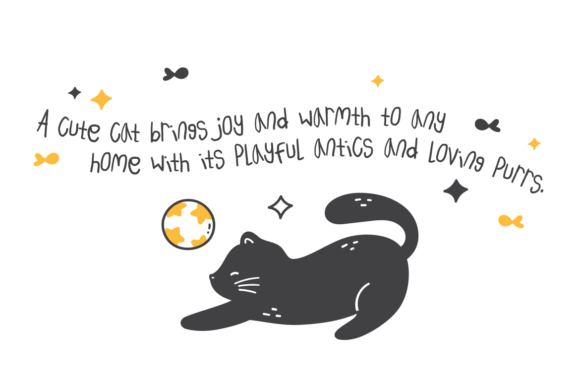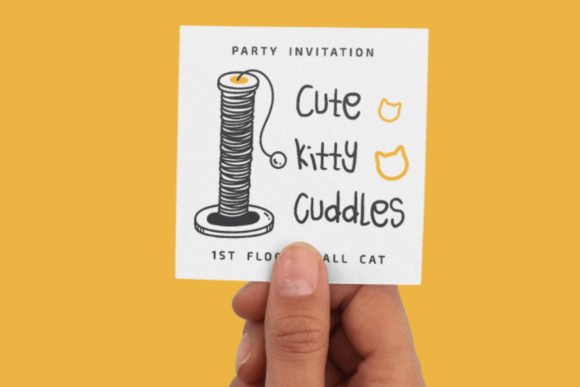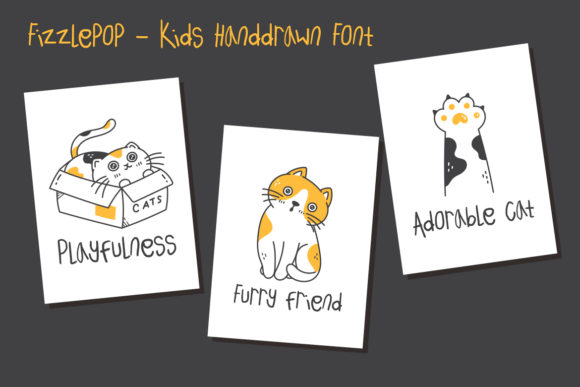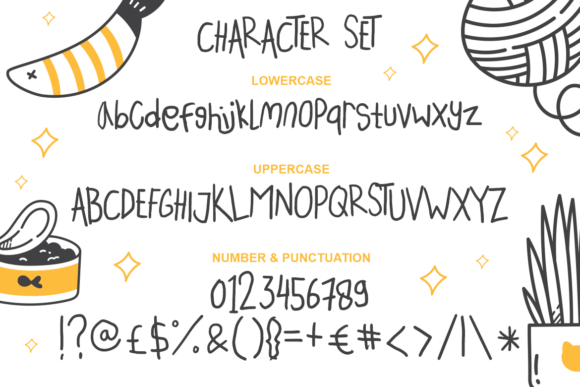
Introducing Fizzlepop: The Playful Kids Handdrawn Font That Brings Joy to Your Designs
Have you ever been working on a project, pouring your heart and soul into it, only to realize that it’s missing that special something? Maybe it’s a children’s book, a playful logo, or a whimsical invitation card. You’re searching for a font that captures the essence of childhood creativity and whimsy. Look no further than Fizzlepop, a delightful typeface that will inject a dose of fun into your designs.
A Personal Design Moment: Finding the Perfect Font
I recall working on a project for a children’s book, struggling to find the right font that would bring the story to life. The client wanted something bold, playful, and reminiscent of kids’ handwriting. I scoured the internet, tried out numerous fonts, but none seemed to capture the essence of childhood creativity. That’s when I stumbled upon Fizzlepop. Its cute scribble style and handdrawn charm immediately won me over. I knew I had found the perfect font for the job.
- ✨ Unique and playful design: Each letter is crafted to look like a unique sketch, embodying the unpredictable and joyful spirit of kids at play.
- ✅ Highly versatile: Suitable for a wide range of applications, from branding projects and packaging design to posters, greeting cards, stickers, book covers, and magazines.
- 💕 Emotional connection: Fizzlepop adds a personal touch to your designs, making them stand out with its handdrawn charm.
⚠️ While Fizzlepop is a wonderful font, it’s not suitable for body text or long-form reading due to its bold and playful nature. It’s best used for headlines, titles, or short phrases.
🤔 Some users may find that the font can be a bit quirky when used in certain contexts, such as in combination with other fonts or in very small sizes.
Fizzlepop was inspired by the creative energy of children at play. The designer, a parent and artist, wanted to capture the essence of childhood imagination and creativity in a font. Through countless hours of sketching and experimenting, Fizzlepop was born – a font that embodies the joy, playfulness, and whimsy of childhood.
Q: What is Fizzlepop?
A: Fizzlepop is a kids handdrawn font that captures the essence of childhood creativity and whimsy.
Q: What is Fizzlepop suitable for?
A: Fizzlepop is suitable for a wide range of applications, including branding projects, packaging design, posters, greeting cards, stickers, book covers, and magazines.
Q: Is Fizzlepop easy to read?
A: Fizzlepop is a bold and playful font, best used for headlines, titles, or short phrases. It’s not suitable for body text or long-form reading.